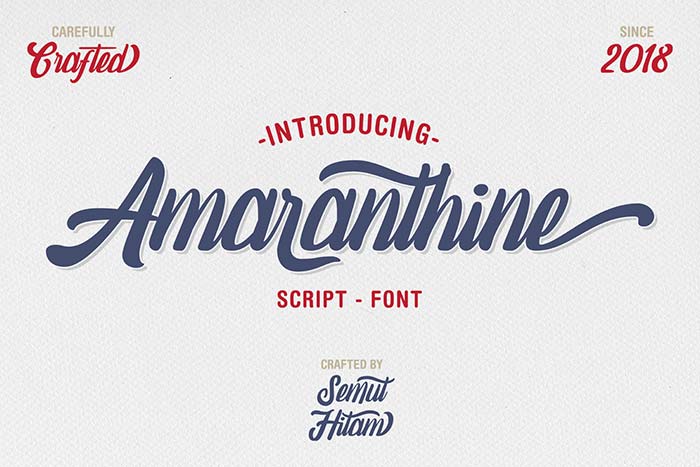
• Smooth vintage script font
• Includes uppercase, lowercase, numerals, punctuation, and multilingual support
• Ideal for logos, branding, posters, invitations, and more
Introducing Amaranthine Script.
This is a smooth and vintage font script. This commercial-use font comes with many OpenType features, upper and lower case standard character set, punctuation and numerals, multilingual characters, ligatures, stylistic alternates, and many more glyphs.
This is the perfect font for your company logos, branding, posters, flyers, greetings, invitations, book covers, quotes, and much more.
Preview of Amaranthine Script Font:Amaranthine Script Font Preview Image